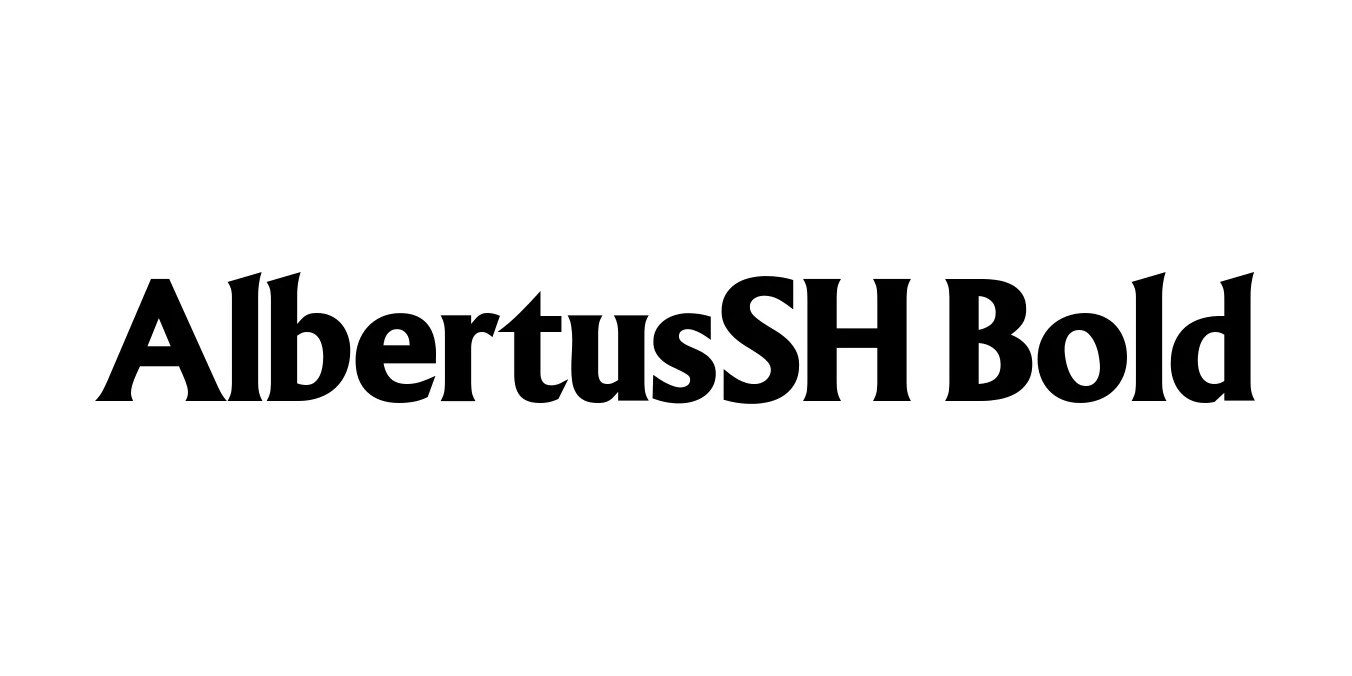
AlbertusSH Bold
Designed by Berthold Wolpe
| Category | Glyphic / Serif |
| Designer | Berthold Wolpe |
AlbertusSH Bold is a heavyweight variant of the iconic typeface designed by Berthold Wolpe for the Monotype Corporation between 1932 and 1940. This typeface was named after the 13th-century philosopher Albertus Magnus and is renowned for its unique glyphic style, featuring slightly flared serifs that mimic the appearance of letters carved into stone. Its bold weight emphasizes these chiseled details, making it a staple for authoritative and timeless display typography.
The Scangraphic (SH) version preserves the high-quality digital rendering needed for professional publishing and signage. Albertus achieved significant cultural status through its use in British television, most notably in the cult series 'The Prisoner,' and has since been adopted for prestigious branding projects. Its blend of classical proportions and modern legibility allows it to bridge the gap between historical elegance and contemporary design needs.
Ideal for literary titles and non-fiction due to its intellectual and timeless aesthetic.
Perfect for public monuments, plaques, and directional signs thanks to its carved-in-stone look.
Works exceptionally well for premium logos that require a sense of heritage and stability.
Effective for cinematic opening credits and chapter headings that demand attention.